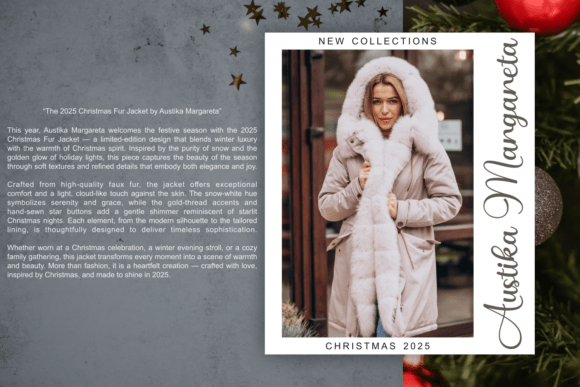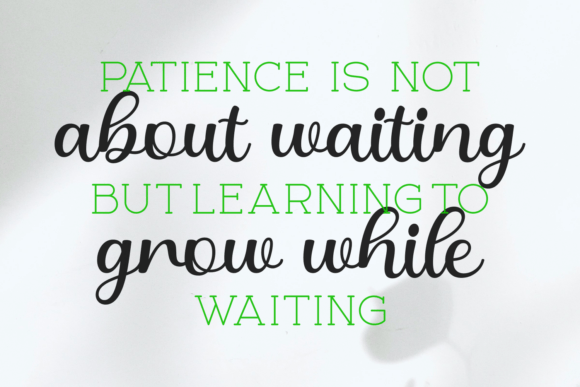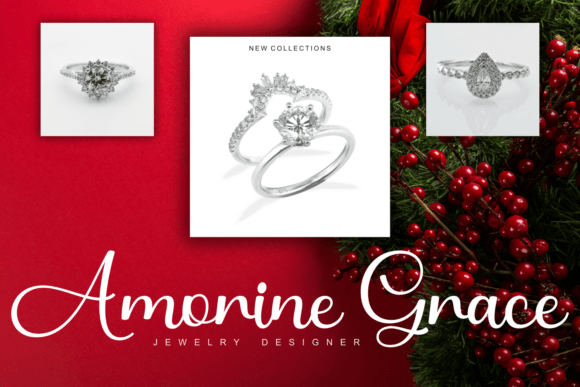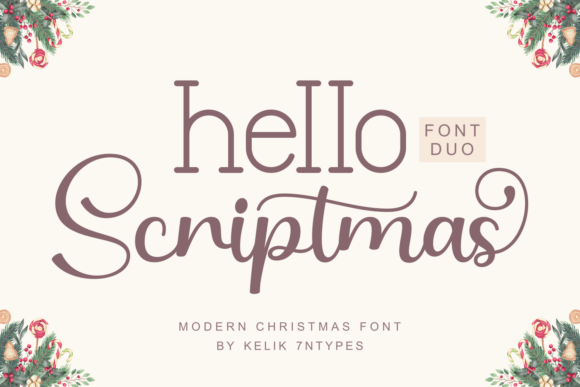
Introduction to Hello Scriptmas Duo Font Font
Hello Scriptmas is a charming font duo that mixes clean serif elegance with festive script flair.
This unique combo brings versatility and holiday warmth, perfect for Christmas cards, product packaging, seasonal branding, and cozy invitations The serif base keeps it neat and modern, while the script adds whimsy ana d handcrafted style.
Key Features of Hello Scriptmas Duo Font Font